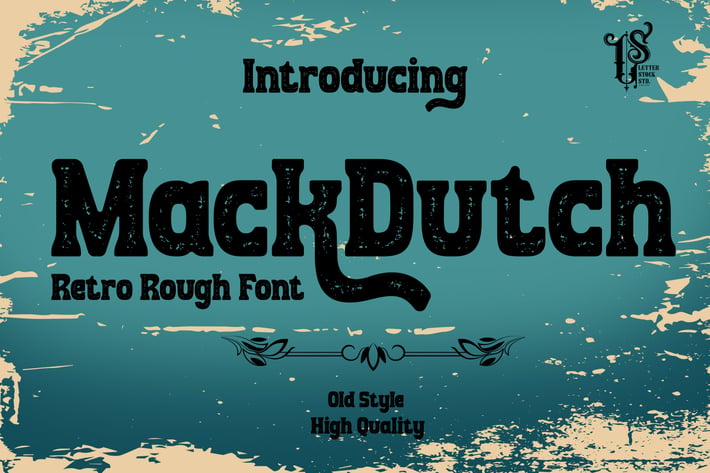
MackDutch - Rough decorative font
MackDutch Font
This pair was inspired by the retro cartoon with motorbike poster design that i saw on some coffee shop, It was crafted by hand specially to add natural handmade feeling in its brand identity than i make it clean with pentool.
MackDutch Font is very good looking in logo, labels, product packaging, invitations, advertising and others.